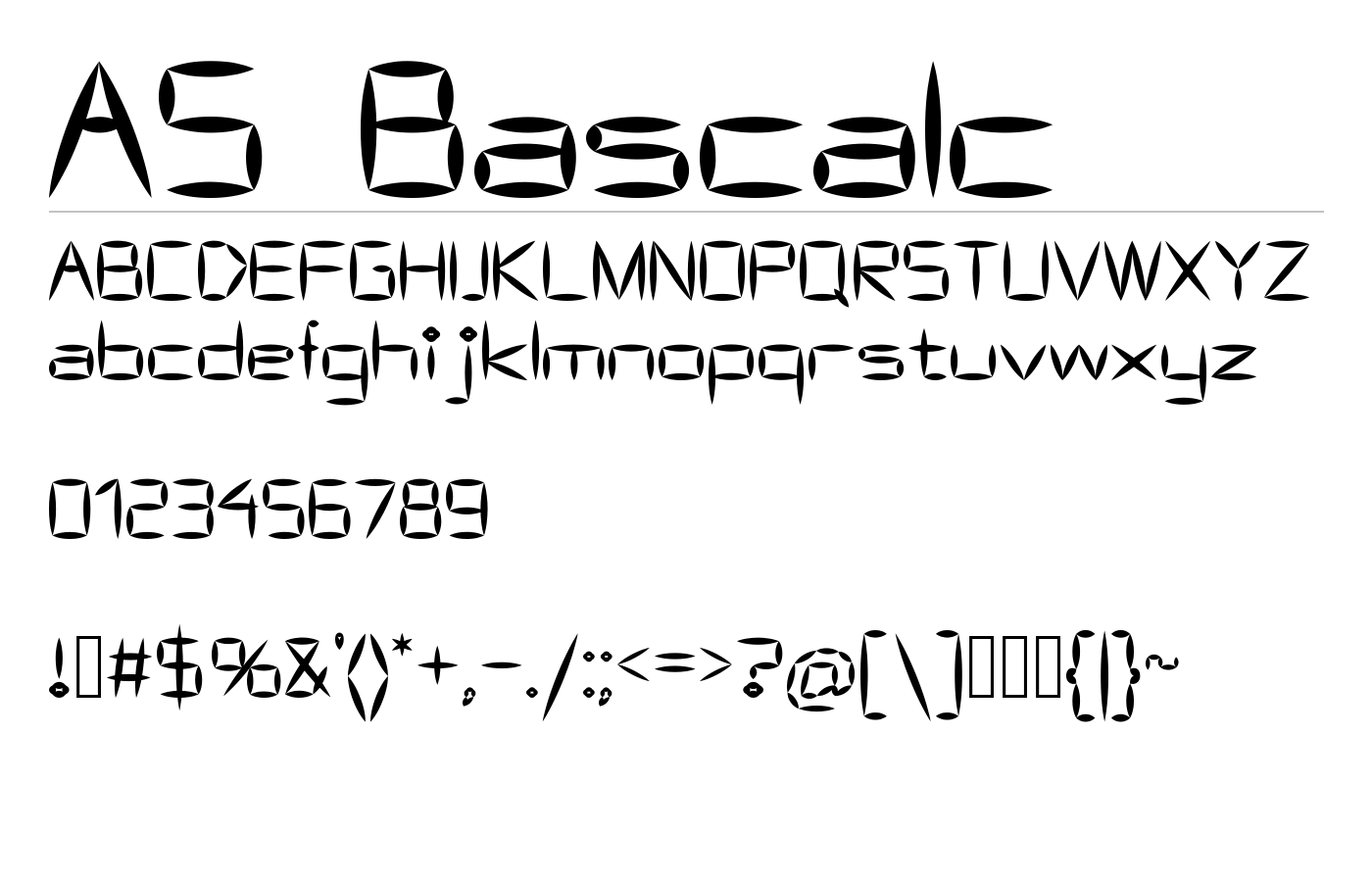
AS Bascalc is a distinctive display sans serif font featuring narrow, angular letterforms with sharp, geometric strokes and high contrast between thick and thin elements. Its futuristic, almost mechanical vibe is emphasized by the unique oval cutouts and pointed terminals, making it perfect for eye-catching headlines, logos, and creative projects that seek a modern and edgy feel. This font stands out in designs that want to convey innovation, boldness, and a touch of avant-garde style.
AS Bascalc Font
About AS Bascalc Font